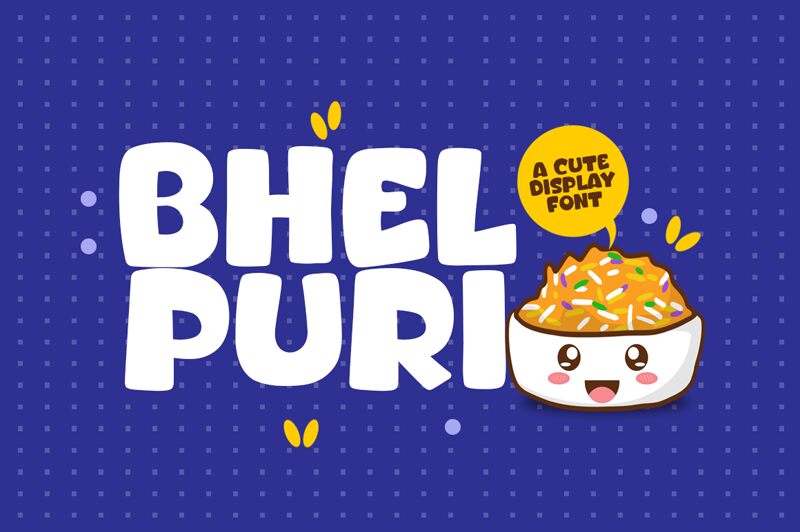
Bhel Puri
Bhel Puri is a bold, expressive display font that exudes a playful, cartoon-inspired aesthetic. Designed by Khurasan, this font boasts an attention-grabbing presence with its thick, dynamic strokes and rounded corners. The whimsical style and pronounced character shapes make Bhel Puri an ideal choice for headlines, logo designs, and other eye-catching typographic elements.
Its bold, confident appearance lends itself well to vibrant branding, engaging advertisements, and energetic editorial layouts. Bhel Puri's versatility extends across various design disciplines, from packaging and product labeling to web and mobile interfaces, where its distinctive flair can captivate audiences and elevate the visual impact.